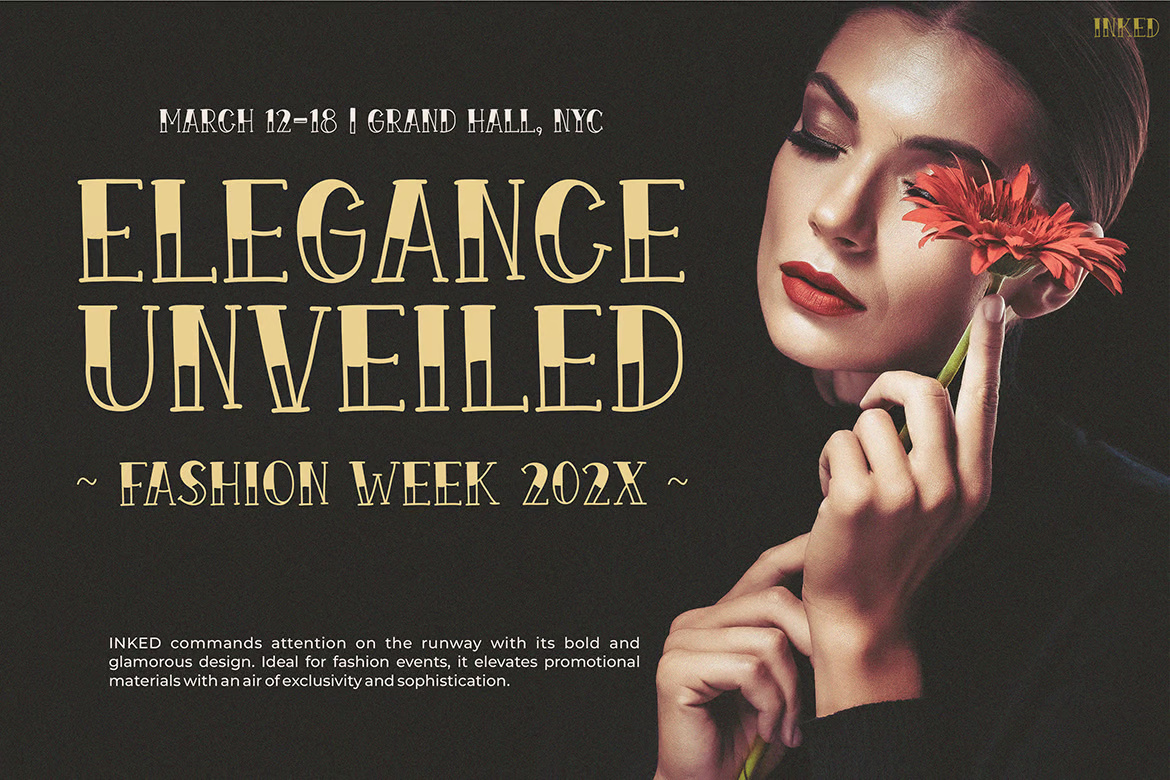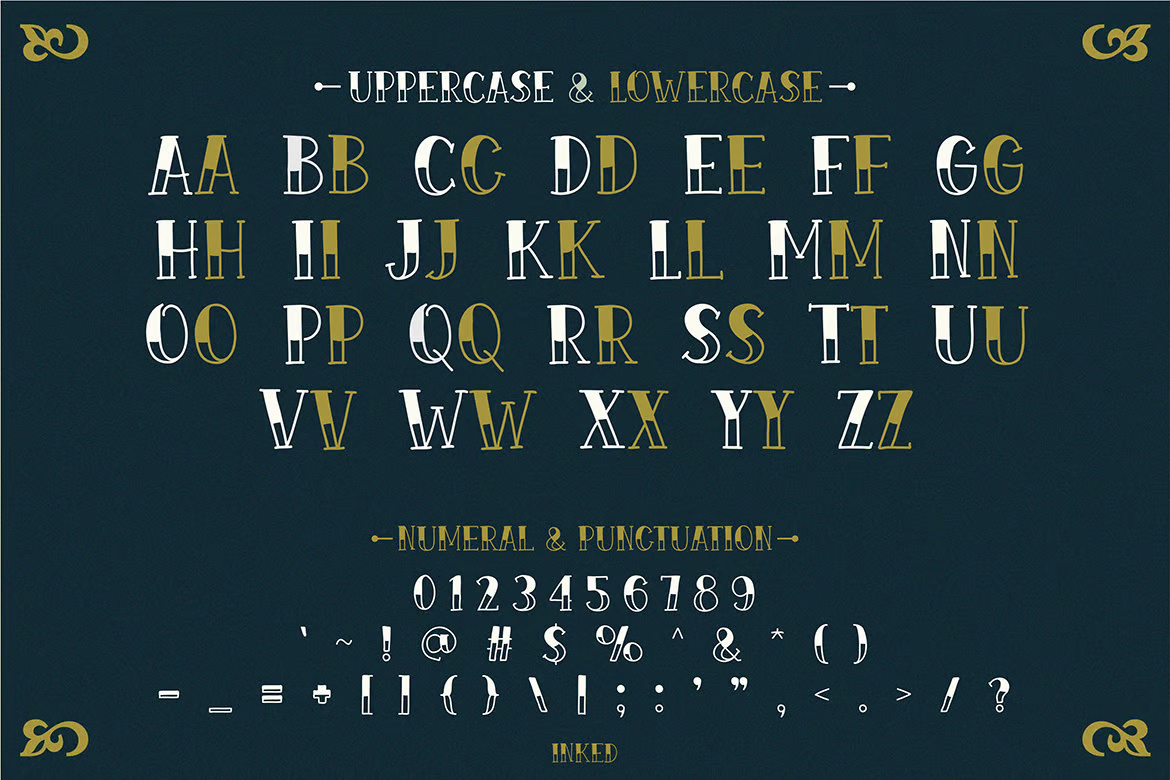
Vintage Tattoo Font
INKED – The Art of Tradition
Step into the world of classic tattoo artistry and vintage craftsmanship with INKED, a font that blends bold, intricate strokes with timeless elegance. Inspired by Victorian tattoo scripts, historical signage, and barbershop branding, INKED is designed for those who appreciate heritage, precision, and style.
With its ornate detailing and bold presence, this font is perfect for tattoo branding, whiskey labels, historical typography, and vintage poster designs. Whether you’re creating a barbershop logo, a timeless tattoo composition, or a refined liquor label, INKED delivers sophistication with an edge.
Vintage Tattoo Decorative Font